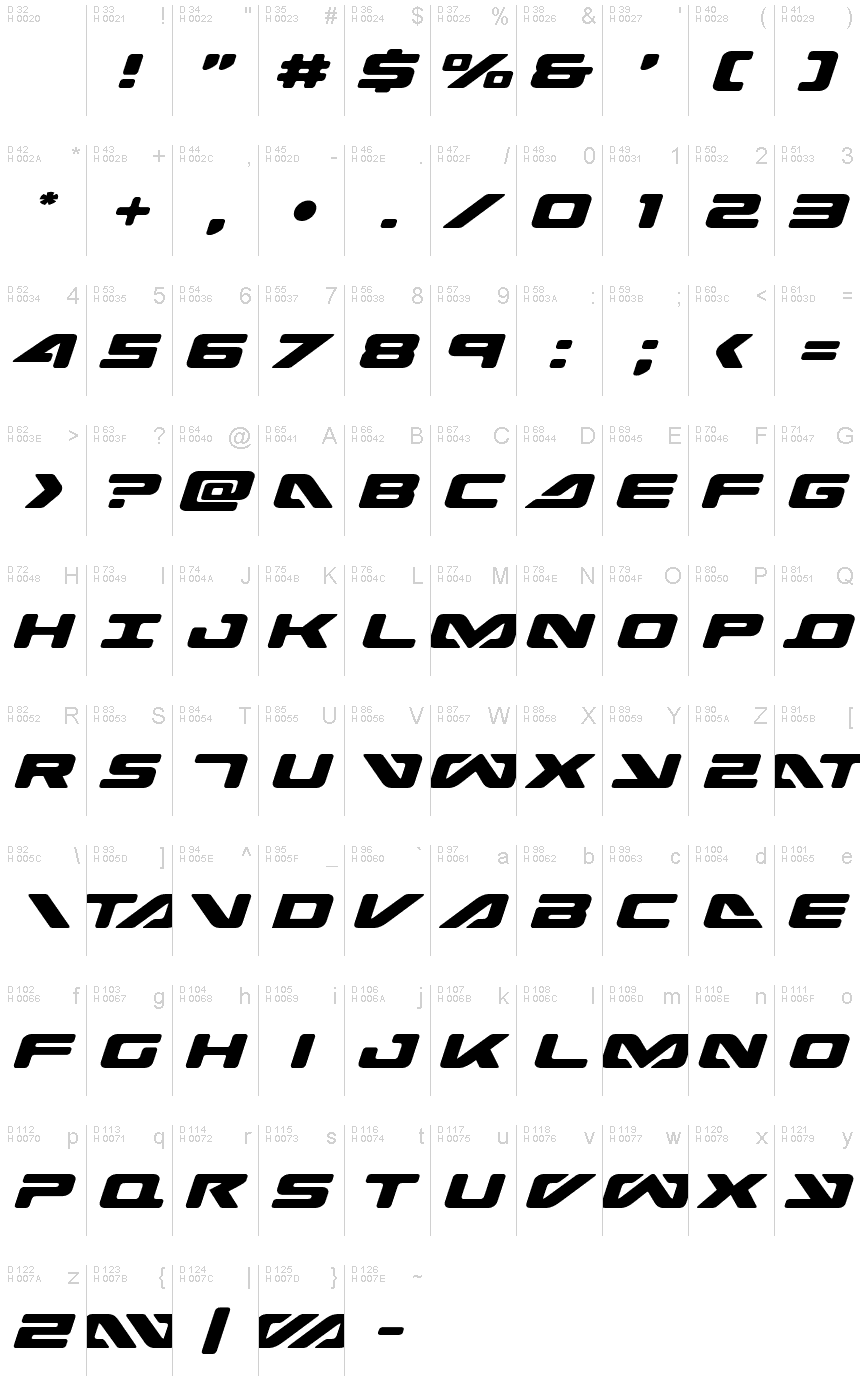
If you're looking for a bold, futuristic font that's sure to make an impact, look no further than Sea-Dog Spaced Italic! This extra-bold display typeface from Iconian Fonts features an extra-expanded width and italicized lettering for added emphasis. Its sleek and modern design makes it perfect for a wide range of projects, from tech-oriented websites to edgy fashion magazines. Use Sea-Dog Spaced Italic to create eye-catching headlines, logos, or product packaging that demands attention. With its unique style and distinctive flair, this font is sure to impress your audience and set your designs apart from the rest.
Sea-Dog Spaced Italic